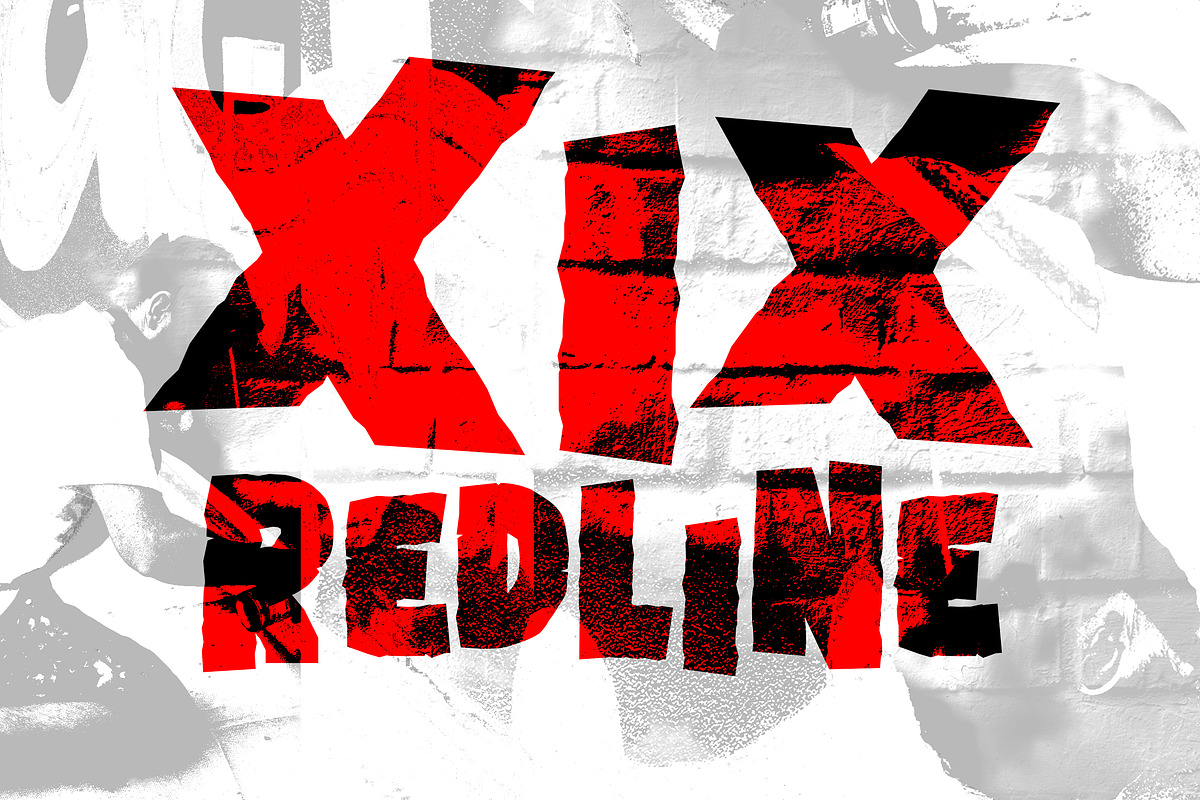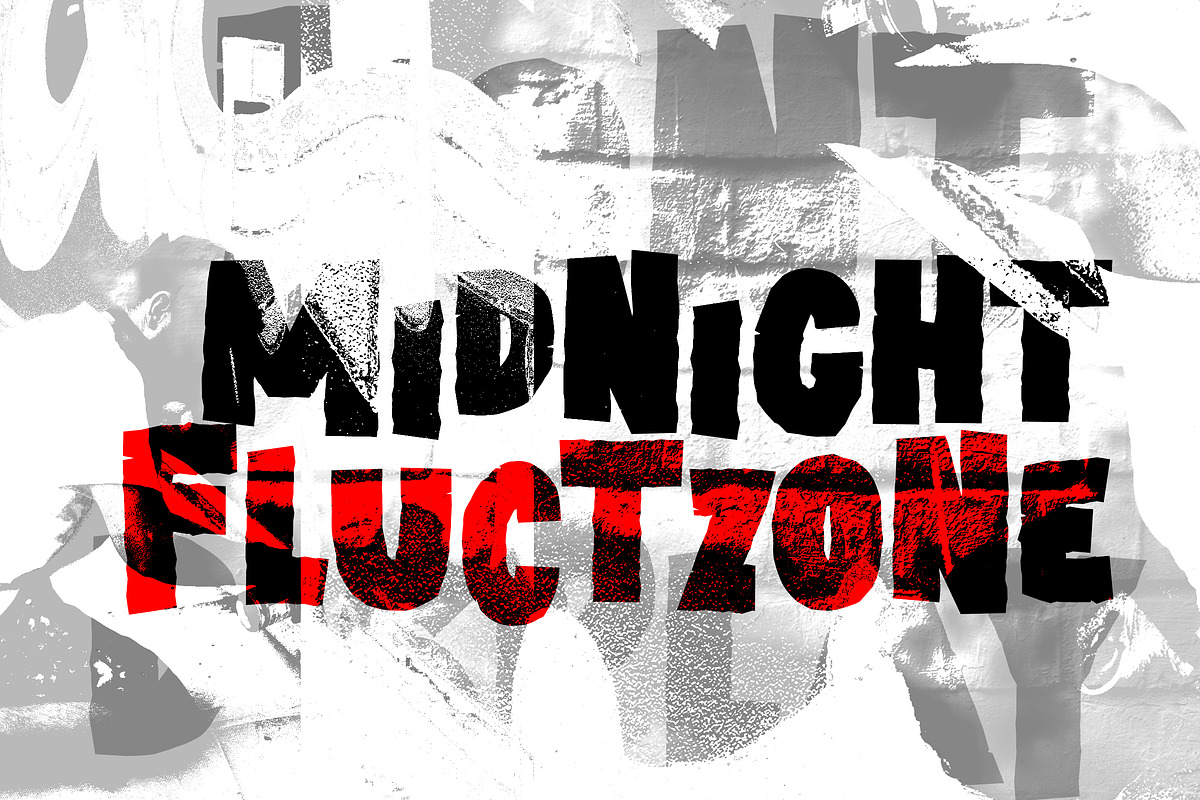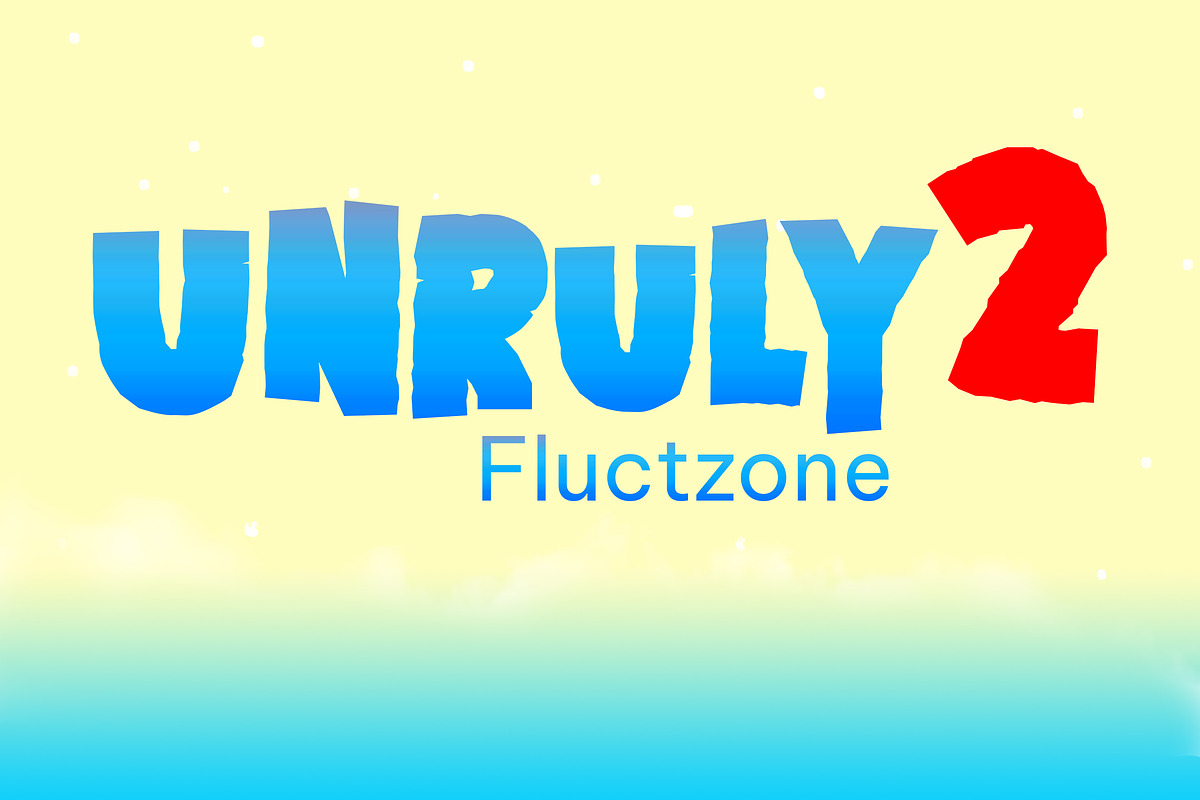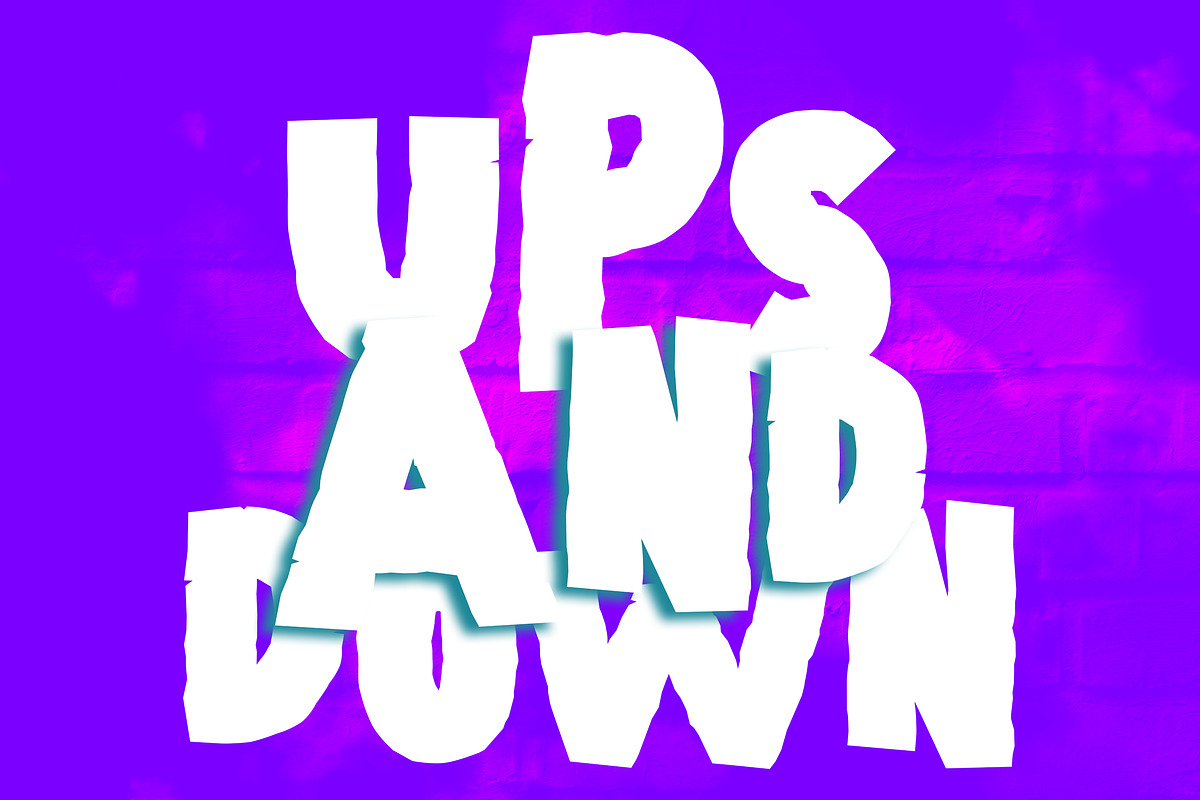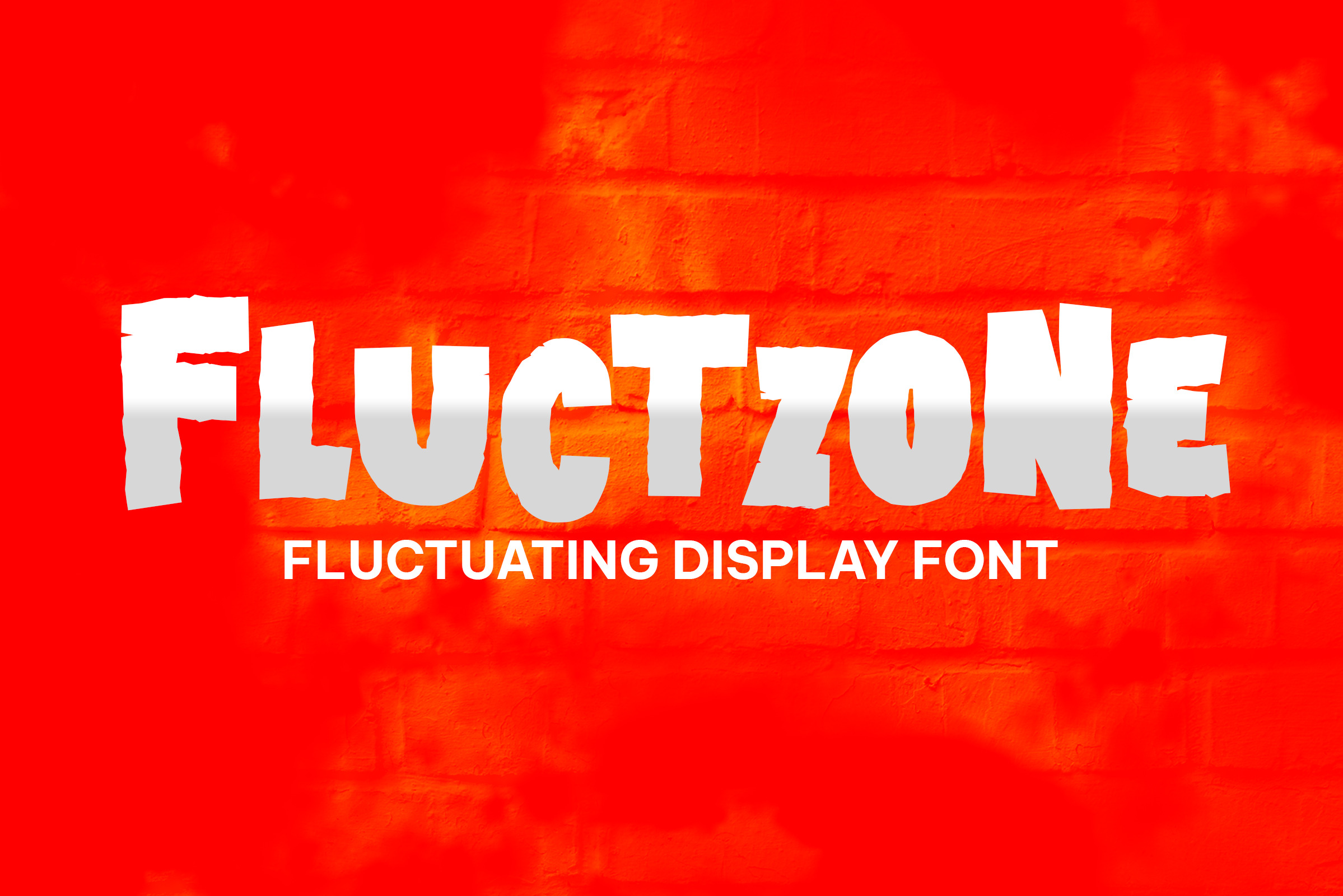
Fluctzone - Display Font
Fluctzone a fluctuating display font, an all caps cutout-style marker font. Lowercase letters are the alternative to Uppercase. Playful Scary Font, Perfect for Halloween designs, logos, branding, packaging, apparel, cards, posters, quotes, social media posts, stickers and much more!